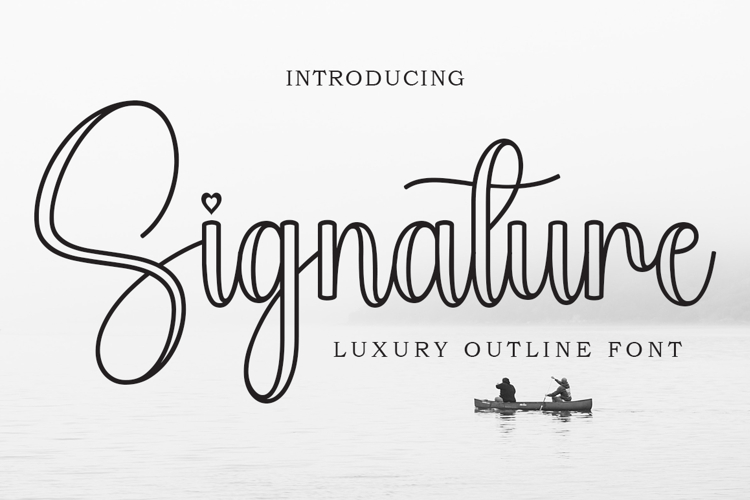
Signature Outline
Introducing “Signature Outline,” a graceful, luxurious outline script font with a charming handwritten touch. Designed with smooth, flowing strokes and elegant curves, this font brings a light and sophisticated aesthetic to any creative project. Its distinctive outline style creates a refined visual appeal that feels modern.
Perfect for luxury branding, logos, wedding stationery, invitations, fashion editorials, beauty products, and social media content, Signature Outline effortlessly adds elegance and personality.
Whether you’re creating a romantic wedding design, a premium brand identity, or fashionable marketing materials, Signature Outline strikes a beautiful balance of luxury, charm, and contemporary sophistication. Elevate your projects with its graceful character and beauty.